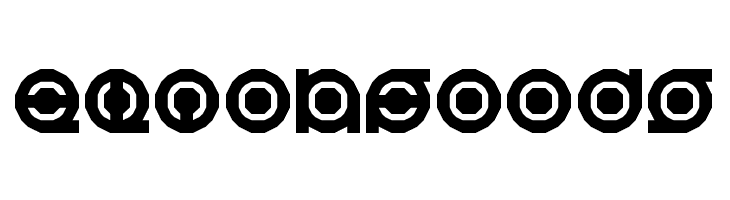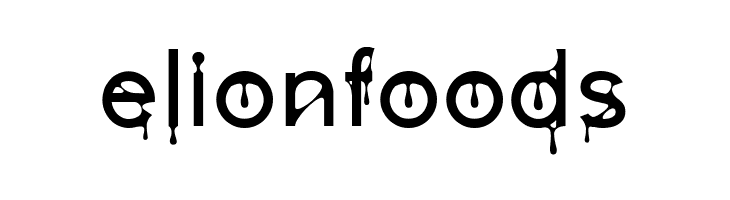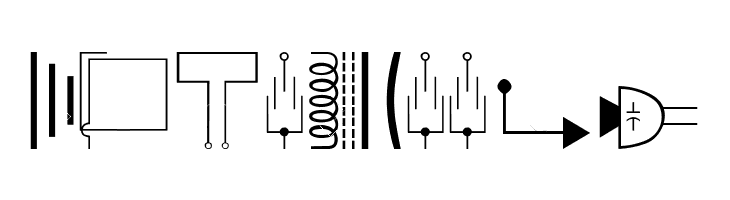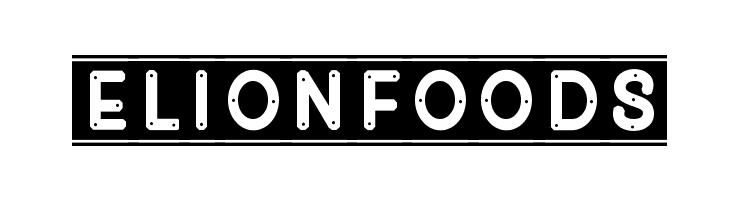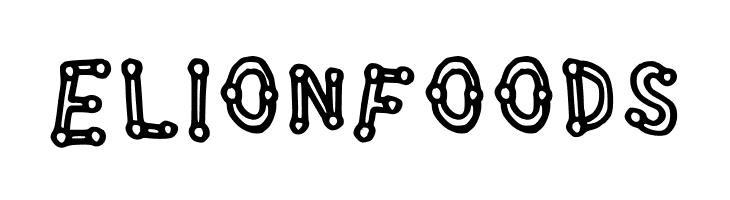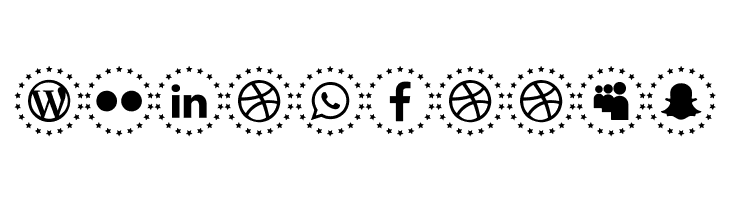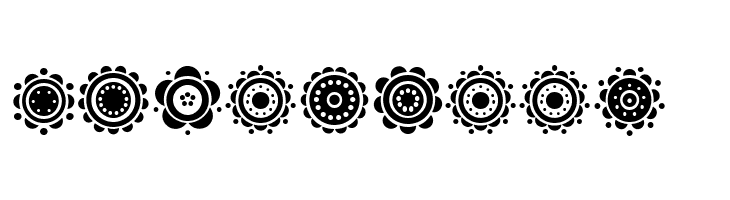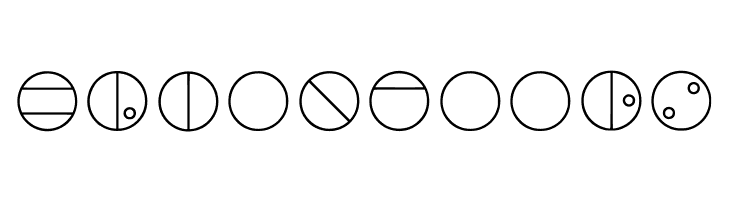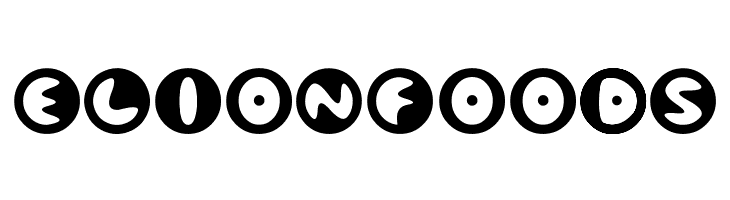
Bold, uppercase font with circular outlines for a modern, geometric look.
A playful, decorative font with drip-like extensions and circular cutouts.
A circuit diagram-inspired decorative font with schematic symbols.
A bold, industrial font with circular cutouts for a mechanical look.
A playful, studded font with decorative outlines and circular embellishments.
Decorative icon set featuring popular web and social media logos within star-dotted circles.
Ornamental dingbat font with bold, circular floral motifs.
A futuristic, circular font with geometric patterns and lines.
A bold, circular font with a playful and modern design.